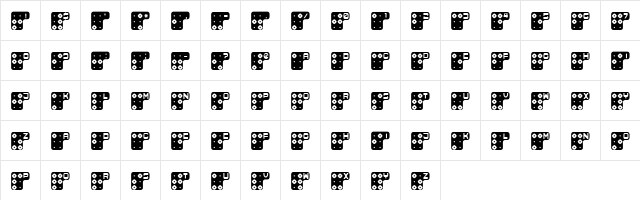
Brailler Regular
Design Context for Brailler Typeface
Brailler is a composed and adaptable typeface that performs quietly and consistently across a wide range of design contexts.